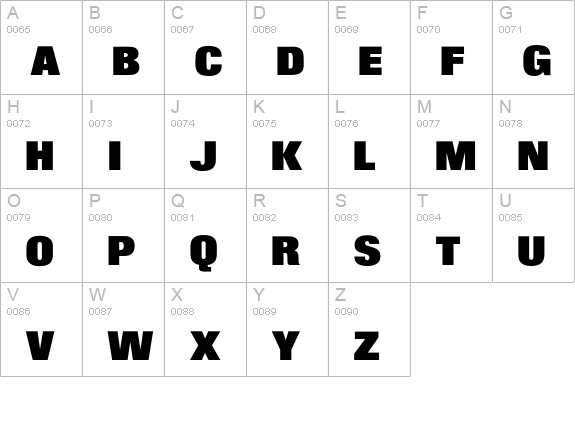
FolioICG-XBold Font Details
FolioICG-XBold is a striking and bold typeface that commands attention with its strong and powerful presence. This font exudes confidence and authority, making it perfect for headlines, titles, and other display purposes. The thick and sturdy letterforms of FolioICG-XBold convey a sense of stability and reliability, while its sleek and modern design adds a touch of sophistication. What makes FolioICG-XBold even more appealing is that it is available for free download at FontsMarket.com. This means you can easily access and use this impressive font for your projects without any cost. Whether you're working on a branding project, poster design, or website layout, FolioICG-XBold is a versatile typeface that will elevate your designs to the next level. Don't miss out on this fantastic opportunity to enhance your work with the impactful and stylish FolioICG-XBold font.